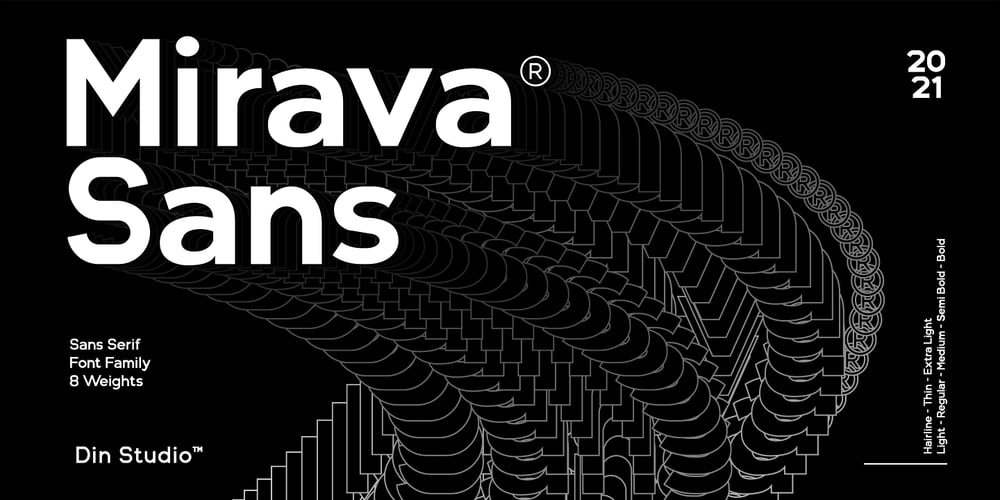
Mirava Font Family was designed by Donis Miftahudin and published by Din Studio. Mirava contains 8 styles and family package options. Hi, Everyone! Ready to make your branding spark? If you need to create a big, bold logo for your business, work on a poster for an event, or whatever your project may be-then this is the perfect font for you. Mirava Sans-A Sans Serif Font FamilyIf we can give you many options then why not? Mirava San is a package that will delight you. With this family you will get many options to maximize your designs with stylish fonts. This font designed to bring your branding to life and add a touch of modernity, fun and style. Mirava paves the way for you to write the information you need to send out to your audience. Perfect to create amazing headings, logos, menus, social media graphics, and many more. Our font always includes Multilingual Support to make your branding reach a global audience. Features: Multilingual Support PUA Encoded Numerals and Punctuation Thank you for downloading premium fonts from Din Studio